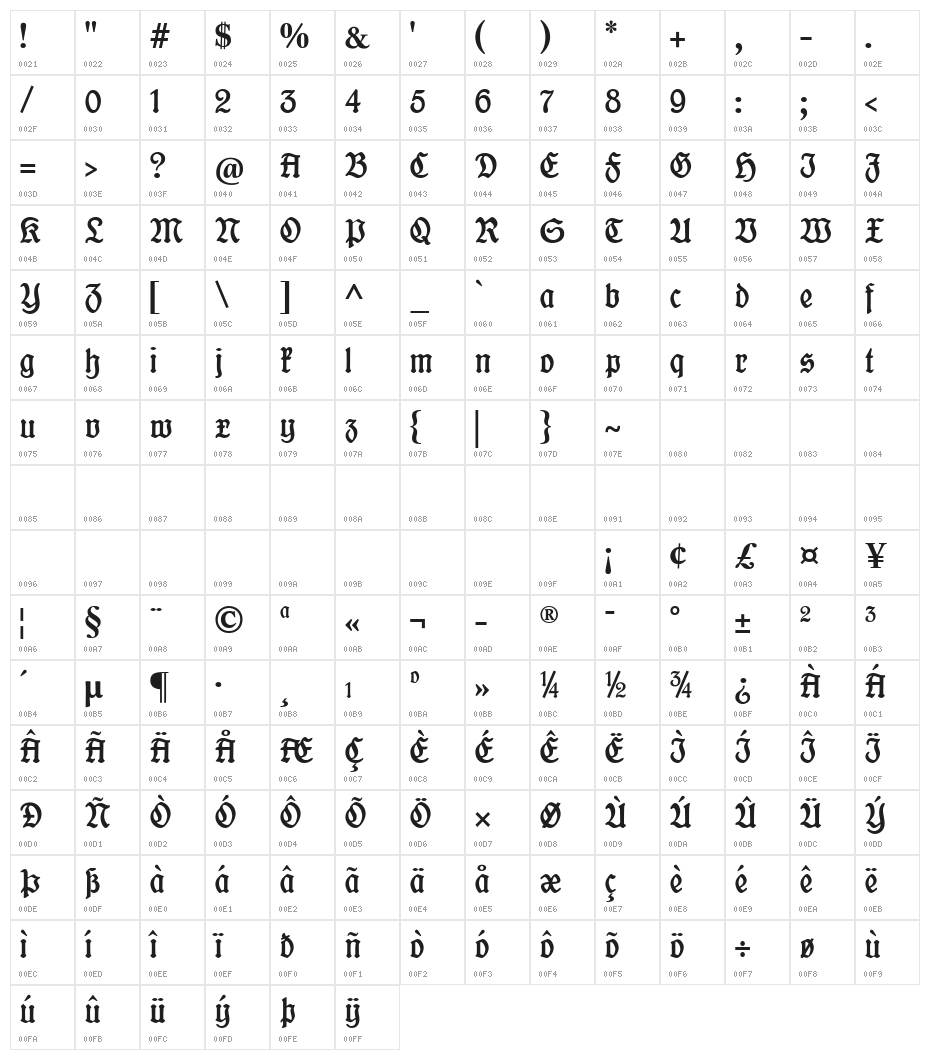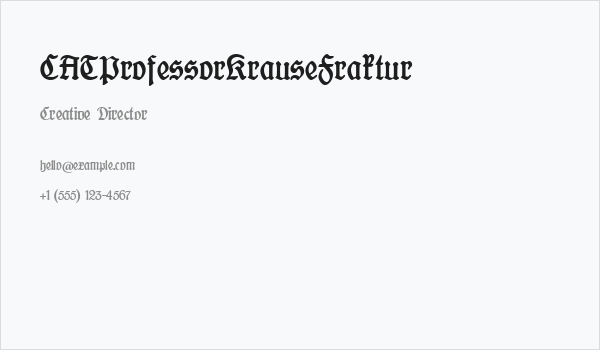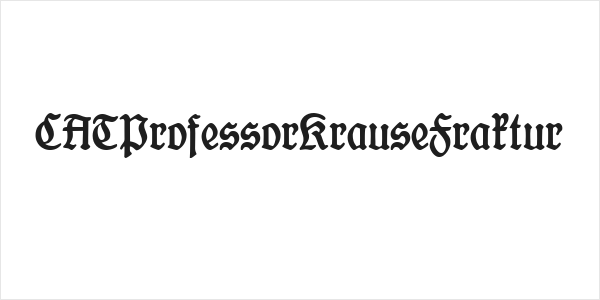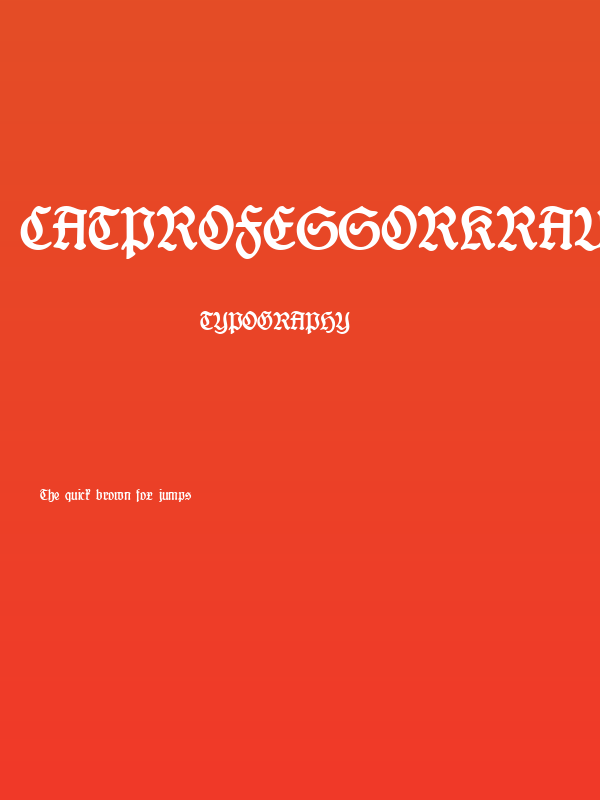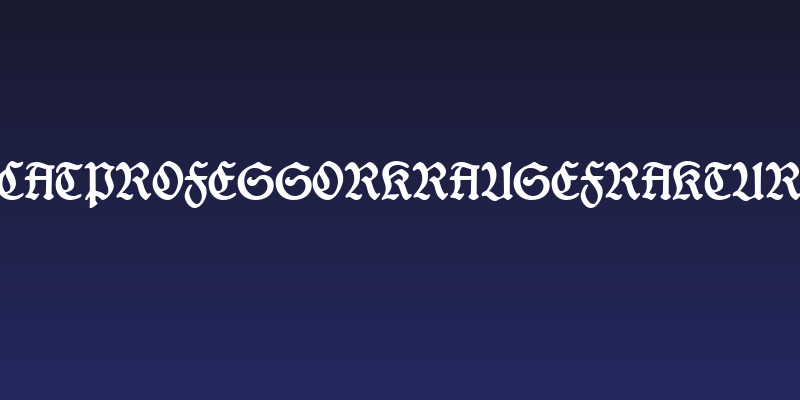
CATProfessorKrauseFraktur Font
CATProfessorKrauseFraktur Description
This font is a classic representation of the Blackletter style, characterized by its intricate and ornate letterforms. The uppercase letters exhibit sharp, angular lines with dramatic flourishes, while the lowercase letters maintain a consistent style with a slightly more rounded appearance. The numerals are bold and distinct, matching the overall aesthetic. Special characters are designed with the same attention to detail, ensuring a cohesive look across all glyphs. The font's historical roots are evident in its medieval manuscript-like appearance, making it ideal for projects that require a touch of antiquity and elegance.